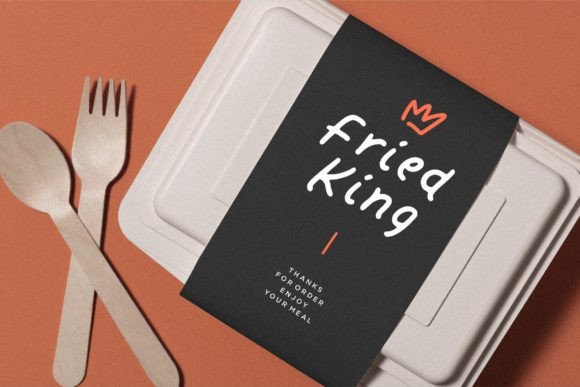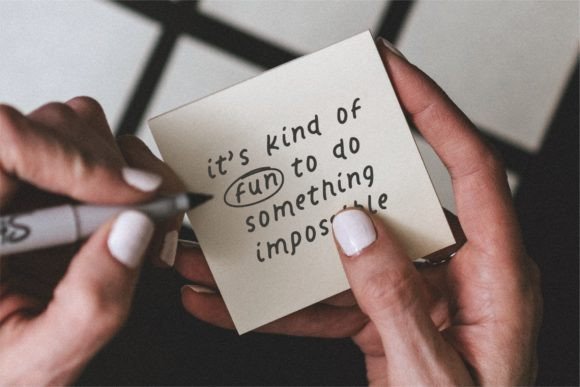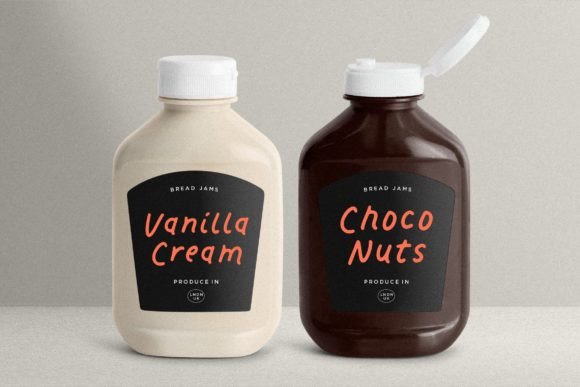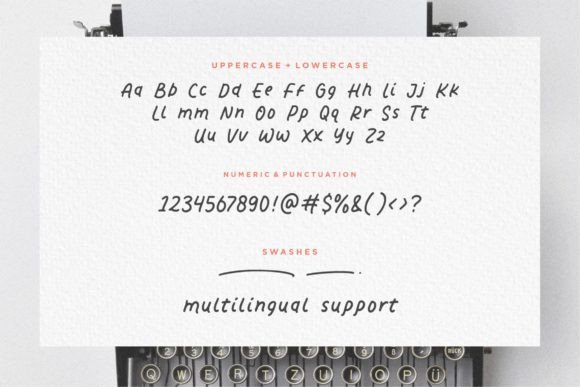
The Ultimate Companion for Your Creative Projects: Bestfriend Font
Have you ever found yourself stuck on a project, staring at a blank page, and suddenly a spark of inspiration hits? For many designers, that spark is often ignited by the perfect font. And if you’re anything like us, you’re always on the lookout for that special something that will make your creations truly shine. Enter the Bestfriend Font, a lovely handwritten font that’s about to become your new best friend in the world of design.
Whether you’re crafting a heartfelt birthday card or working on a digital presentation, Bestfriend Font is the perfect companion to help you convey your message with warmth and personality. Its friendly, quotable style makes it a valuable addition to any designer’s toolkit, and its versatility ensures that it will become a go-to font for any occasion.
Bestfriend Font Key Features
- Font Family: Bestfriend, Bestfriend Regular, Bestfriend Bold, Bestfriend Italic, Bestfriend Bold Italic
- Size: 20,000+ glyphs, including Latin, Cyrillic, Greek, and Devanagari scripts
- Resolution: Supports high-resolution displays (up to 10,000 dpi)
- Unique Characteristics: Bestfriend Font features a modern, friendly design with rounded edges and subtle flair, making it perfect for digital products, branding, and packaging
Designer Review: Bestfriend Font
Overall, I’d say the Bestfriend Font has some lovely qualities, but also a few areas for improvement. Let’s dive in!
- Friendly and approachable feel: The Bestfriend Font has a very warm and inviting aesthetic that makes it perfect for design projects that require a personal touch.
- Good legibility: The font is easy to read, even at smaller sizes, making it suitable for a variety of applications, from body text to headings.
- Stylish alternates: The font comes with a range of stylish alternates, which can add an extra layer of personality to your designs.
- Limited language support: Unfortunately, the Bestfriend Font only supports a limited range of languages, which may be a issue for designers working on international projects.
- Not ideal for small sizes: While the font is generally legible, it can start to look a bit fuzzy when used at very small sizes, which may be a problem for designs that require tiny text.
Overall, the Bestfriend Font is a solid choice for designers looking for a friendly, approachable font. While it may have some limitations, its unique personality and good legibility make it a great addition to any design toolkit.
Tips for Getting the Most Out of the Bestfriend Font
Use the Bestfriend font for creating eye-catching headings and titles.
Pair the Bestfriend font with a clean and simple font for body text.
Use the Bestfriend font for:
Party and event graphics.
Personalized gifts and merchandise.
Alternatives to Bestfriend Font for Designers
Lato is a sans-serif font designed by Łukasz Dziedzic. It is a modern and clean font that is suitable for both digital and print designs. Lato is a great alternative to Bestfriend Font for designers who want a more neutral and professional look. It is highly legible and works well for large blocks of text, making it perfect for articles, blog posts, and websites.
Comparison to Bestfriend Font: Lato is a more minimalist and modern font compared to Bestfriend Font. While Bestfriend Font has a friendly and approachable feel, Lato is more neutral and professional.
Abril Fatface is a luxurious and elegant serif font designed by Pablo Parra Cuartero. It is a great choice for designers who want to add a touch of sophistication and glamour to their designs. Abril Fatface is perfect for high-end branding, luxury packaging, and fine art designs.
Comparison to Bestfriend Font: Abril Fatface is a more formal and luxurious font compared to Bestfriend Font. While Bestfriend Font is friendly and approachable, Abril Fatface is more elegant and sophisticated.